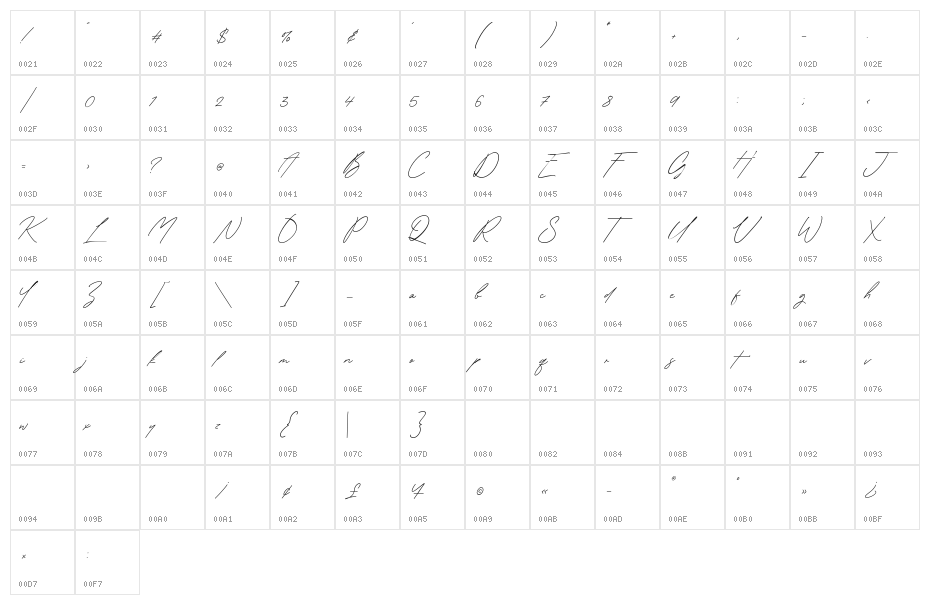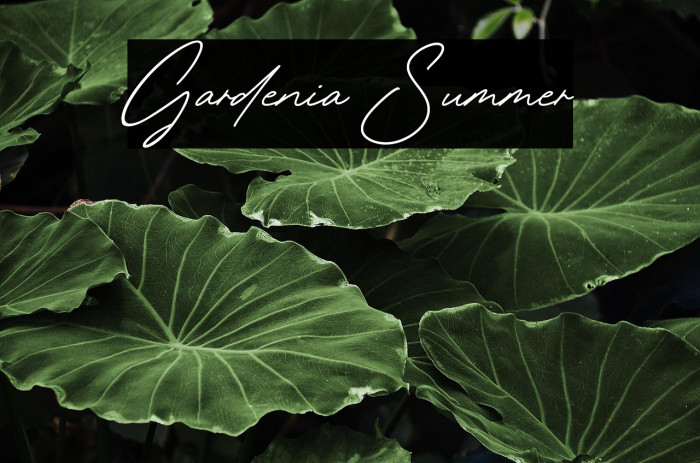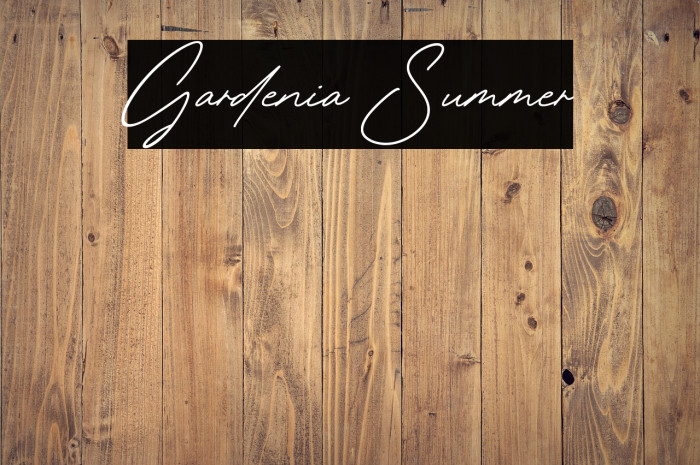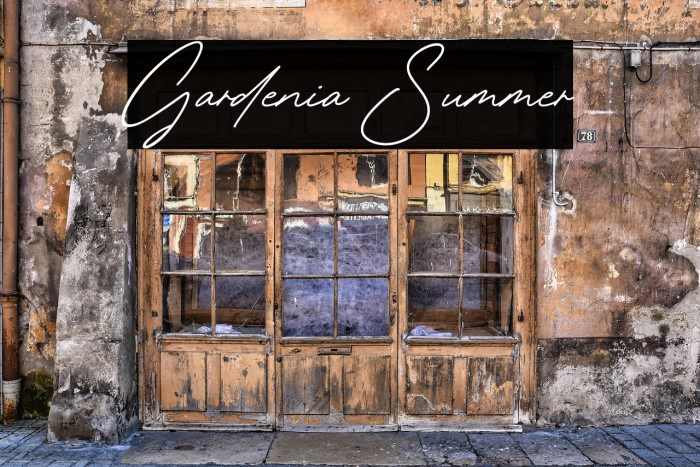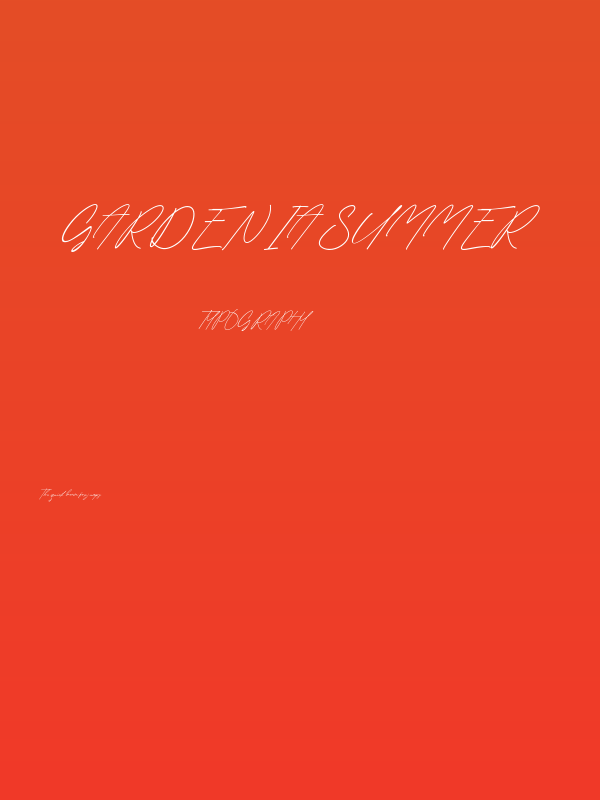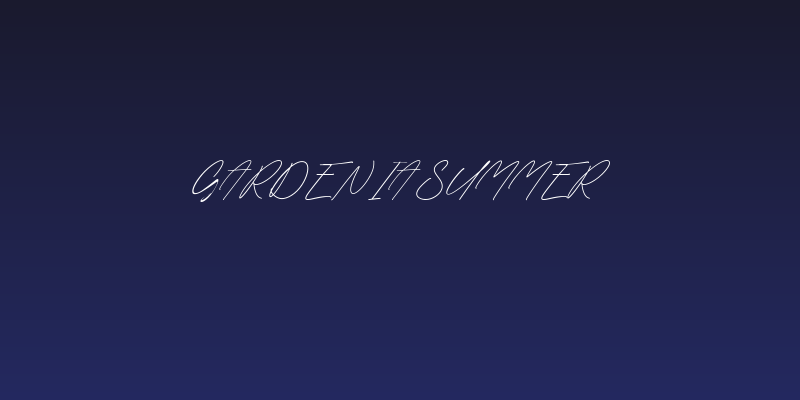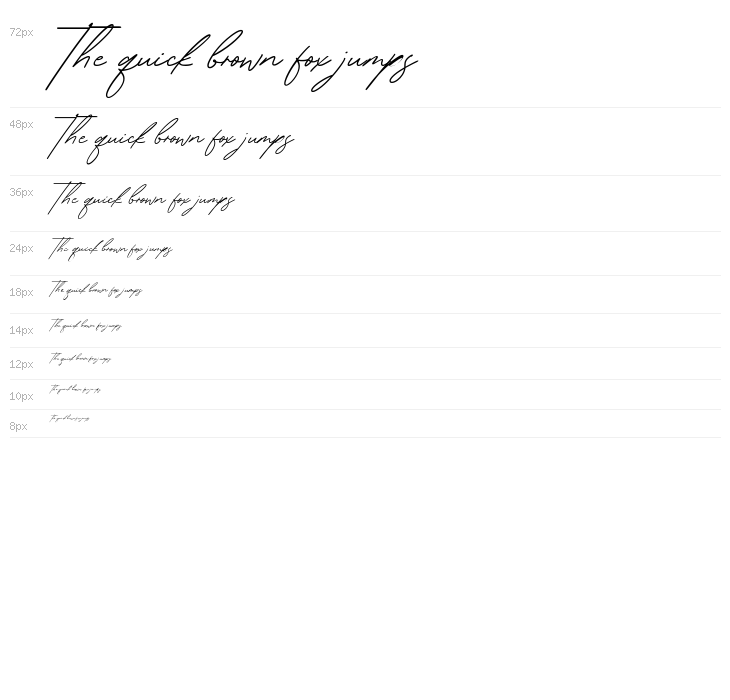
Gardenia Summer Font
Gardenia Summer Description
This font exudes a delicate and elegant handwritten style, characterized by its fluid and continuous strokes. The letters are gracefully connected, creating a seamless flow that mimics natural handwriting. The uppercase letters are slightly more elongated, adding a touch of sophistication and flair. The lowercase letters maintain a consistent rhythm and balance, enhancing readability while preserving the font's artistic charm. Numbers and special characters are crafted with the same attention to detail, ensuring a cohesive look throughout. This font is perfect for projects that require a personal and artistic touch.
Overall StyleElegant
Use CaseLogos, Invitations, Artistic projects
Proposed ProjectsIdeal for wedding invitations, personal branding, greeting cards, and artistic projects.